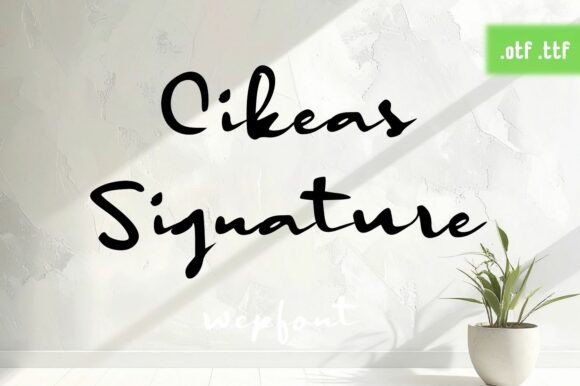
Discover Your Signature Style with the Cikeas Signature Font
Remember the moment you scribbled your name on a childhood drawing, the spark of excitement as you watched your handwriting transform into a unique work of art? For designers, that feeling of creative freedom is just a font away. Introducing the Cikeas Signature Font – a beautifully crafted script font that masterfully blends charm and sophistication, bringing a touch of personal flair to your designs.
This stunning typography masterpiece is designed to evoke the warmth and intimacy of handwritten letters, lending a distinguished character to your innovative projects. With its extensive collection of uppercase, lowercase, numerical, and punctuation marks, the Cikeas Signature Font offers unparalleled versatility, making it an ideal fit for photographers, specialized businesses, and lifestyle brands seeking to add a signature allure to their creative journey.
Cikeas Signature Font Key Features
- Unique Characteristics: Hand-drawn, cursive, and elegant script style with a modern twist, ideal for signature, logo, and typography projects
- Language Support: Multilingual support, including Latin, Cyrillic, and Greek alphabets
- Font Count: 2 fonts (Regular and Bold)
Cikeas Signature Font Review
Overall, I think the Cikeas Signature Font is a decent addition to any designer’s toolkit. Here are some things that work well:
- ✨ Unique letterforms and flourishes that add a touch of elegance to any design project.
- ✨ A wide range of weights and styles, making it easy to find the perfect match for your design.
- ✨ Great for use in invitations, greeting cards, and other formal or semi-formal designs.
- ⚠️ The font may not be the best choice for body text, as it can be a bit difficult to read at smaller sizes.
- ⚠️ Some of the flourishes and ornaments may be a bit too ornate for more modern or minimalist designs.
Overall, I’d give the Cikeas Signature Font 3.5 out of 5 stars. While it’s not perfect, it’s a solid choice for designers looking to add a touch of sophistication to their projects. With a bit of restraint and creativity, you can use this font to create truly stunning designs.
Getting the Most Out of Cikeas Signature Font
For optimal results, use Cikeas Signature Font in bold or italic styles to add emphasis to your text.
Combine Cikeas Signature Font with other design elements, such as graphics and images, to create visually appealing designs.
Cikeas Signature Font is ideal for:
Business card design
Any design project where a unique and elegant font is desired
Alternatives to Cikeas Signature Font
The Great Vibes Font is a modern script font designed by Handmade Fonts. It’s perfect for creating elegant and stylish designs, especially for wedding invitations, event promotions, or any project that requires a touch of sophistication. Compared to Cikeas Signature Font, Great Vibes has a more refined and polished look, making it suitable for high-end designs.
The Dancing Script Font is a beautiful script font designed by Pablo Impallari. It’s ideal for creating playful and eye-catching designs, such as logos, social media graphics, or promotional materials. Compared to Cikeas Signature Font, Dancing Script has a more dynamic and energetic feel, making it perfect for designs that require a lively touch.
The Pacifico Font is a beautiful script font designed by Vic Fieger. It’s perfect for creating elegant and sophisticated designs, especially for branding, packaging, or any project that requires a touch of luxury. Compared to Cikeas Signature Font, Pacifico has a more relaxed and casual look, making it suitable for designs that require a laid-back feel.
The Lobster Font is a fun and playful script font designed by Pablo Impallari. It’s ideal for creating eye-catching and attention-grabbing designs, such as logos, social media graphics, or promotional materials. Compared to Cikeas Signature Font, Lobster has a more quirky and humorous feel, making it perfect for designs that require a lighthearted touch.